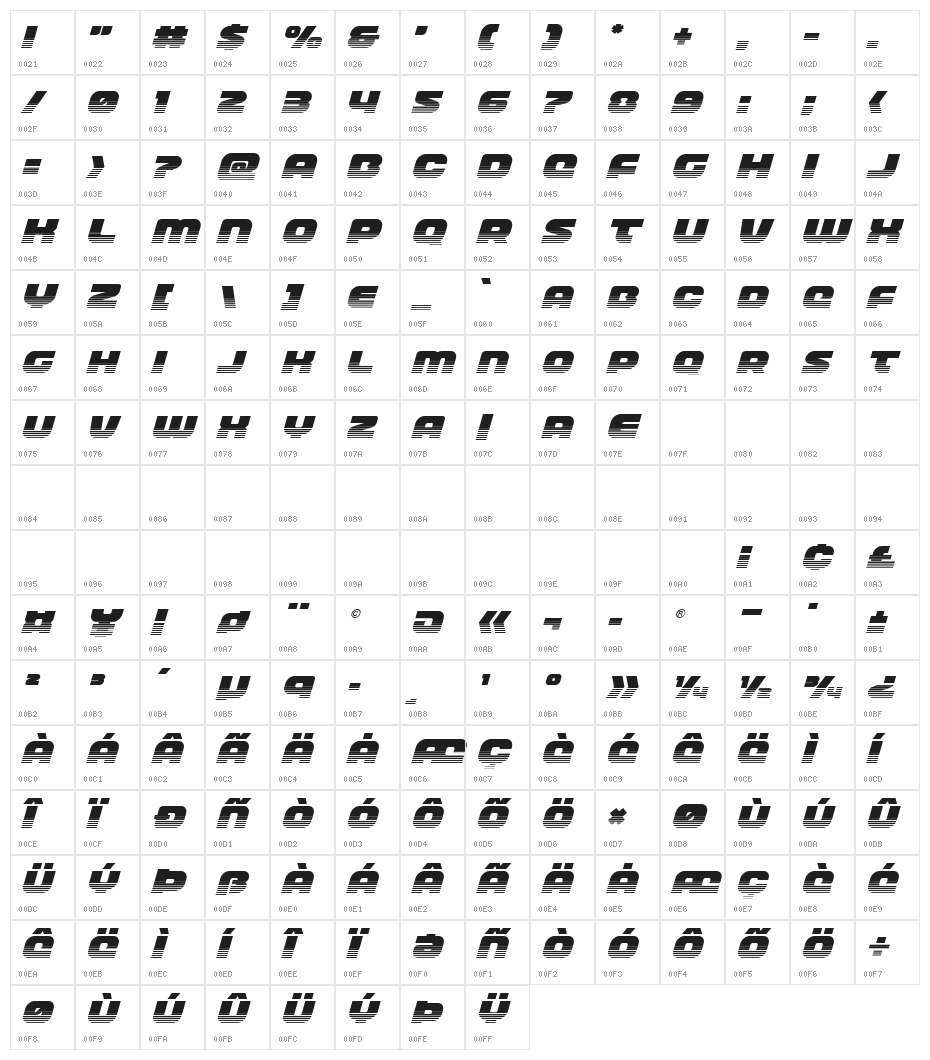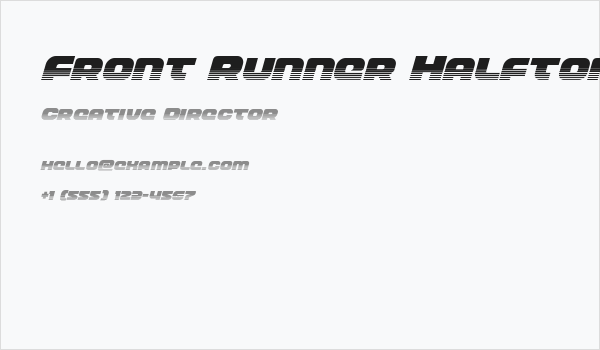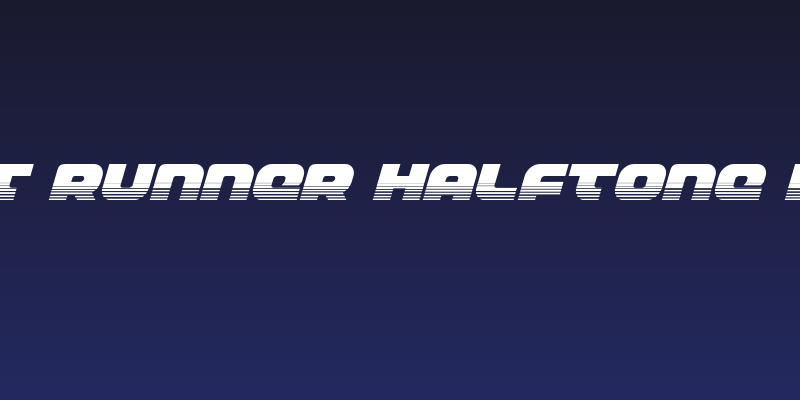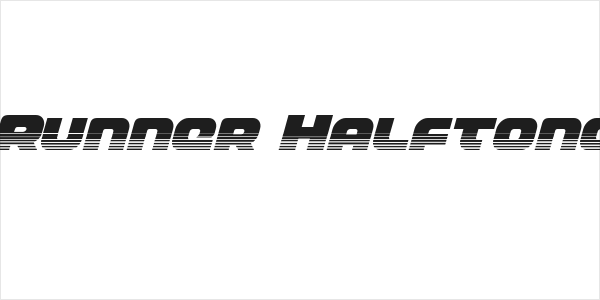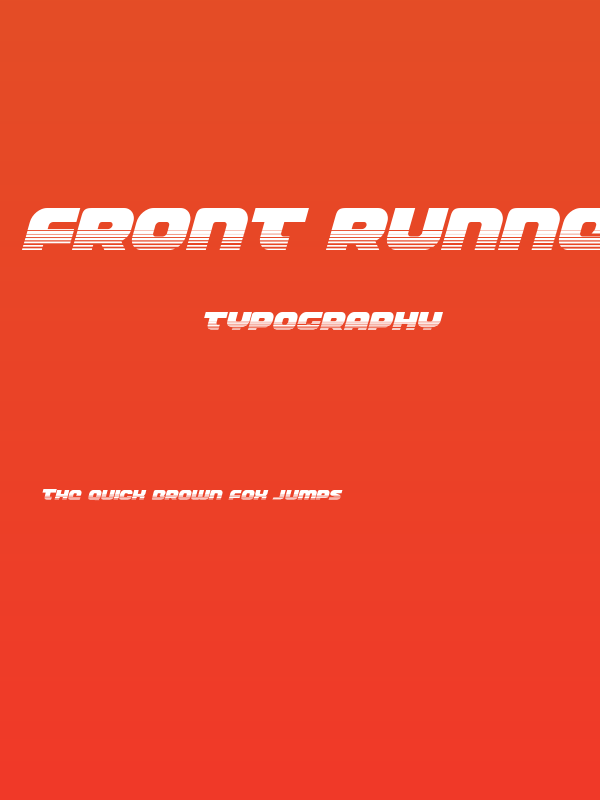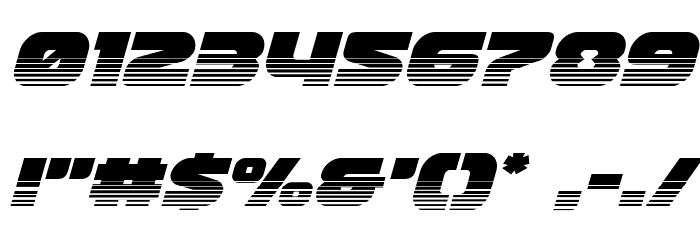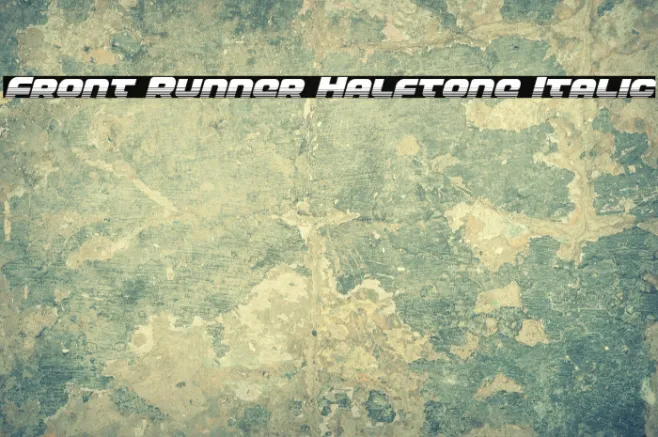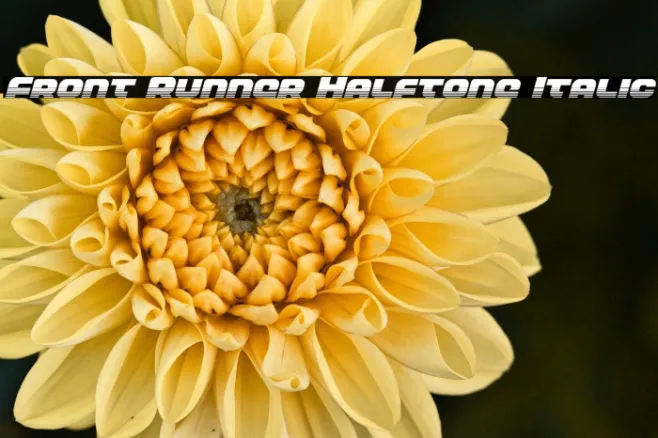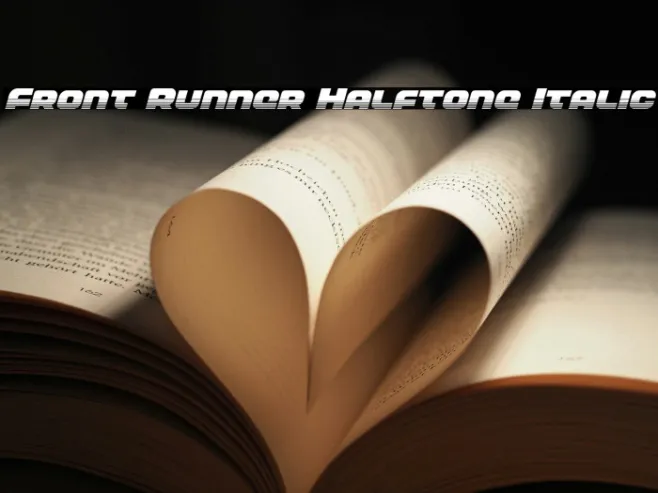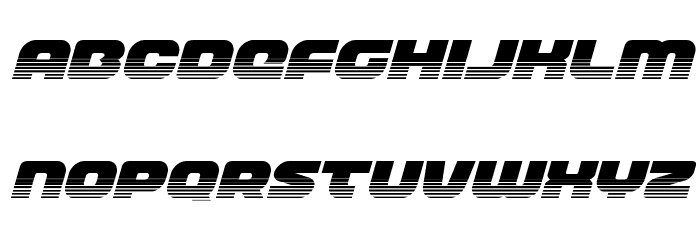
Front Runner Halftone Italic Font
Front Runner Halftone Italic Description
This font features a bold, italicized style with a distinct halftone effect, giving it a dynamic and futuristic appearance. The characters are designed with horizontal lines that create a sense of motion and speed, making it ideal for projects that require a modern and energetic look. The uppercase and lowercase letters maintain a consistent style, with numbers and special characters following the same design principles. This font's unique aesthetic is perfect for eye-catching headlines and logos.
| Proposed Projects | Perfect for sports branding, tech-related designs, futuristic posters, and dynamic advertising campaigns. |